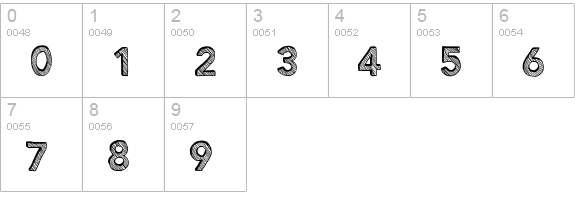
Figurativative Font Details
Introducing Figurativative font, a captivating typeface that effortlessly combines elegance with a touch of whimsy. This font is a celebration of artistic expression, designed to bring your creative projects to life with its unique and captivating charm. Figurativative font features beautifully crafted letterforms that dance across the page, instantly capturing the attention of any reader. Its delicate curves and intricate details add a sense of sophistication, while its playful elements inject a sense of fun and imagination. Whether you're designing a logo, creating eye-catching headlines, or crafting stunning invitations, Figurativative font offers endless possibilities. Its versatility allows it to adapt to any project, effortlessly complementing a wide range of styles and aesthetics. One of the most remarkable aspects of Figurativative font is that it is available for free download at FontsMarket.com. This means that you can easily access this extraordinary font without any hassle or cost, allowing you to unleash your creativity without limitations. With Figurativative font, you can transform your designs into works of art that truly stand out. So why wait? Download this remarkable font today and let your imagination soar to new heights. Experience the freedom and versatility that Figurativative font brings to your creative endeavors, and watch as your projects come to life in ways you never thought possible.